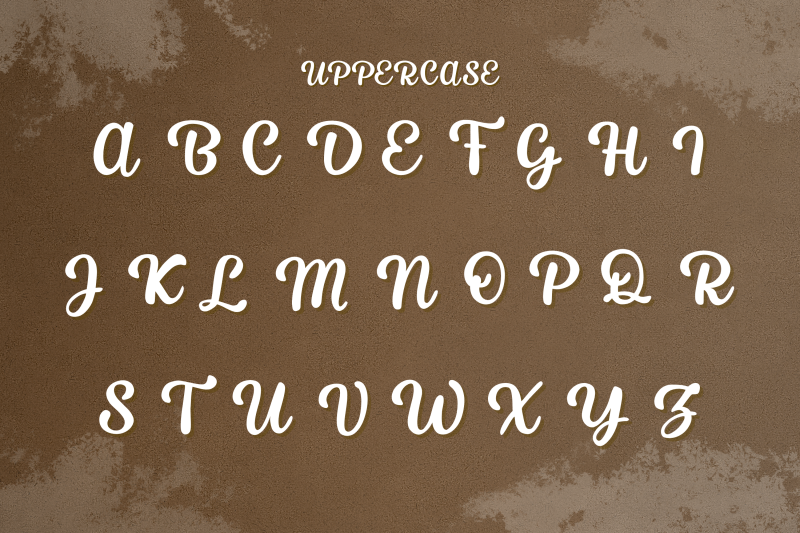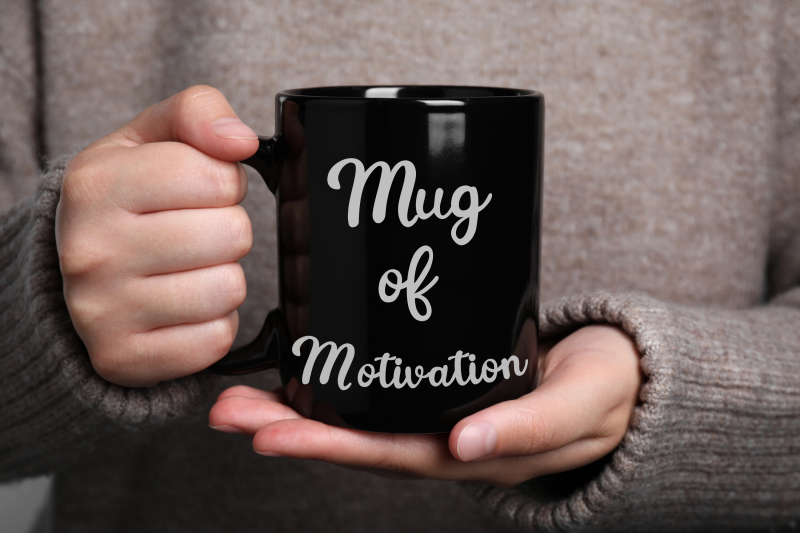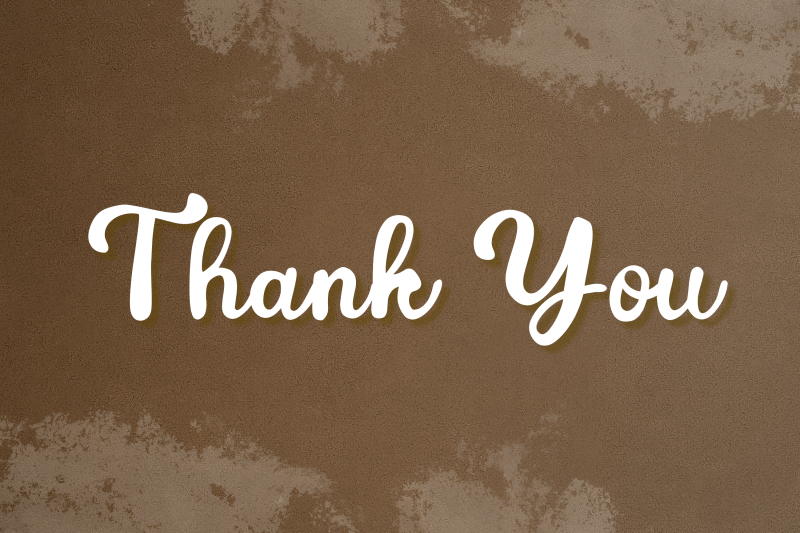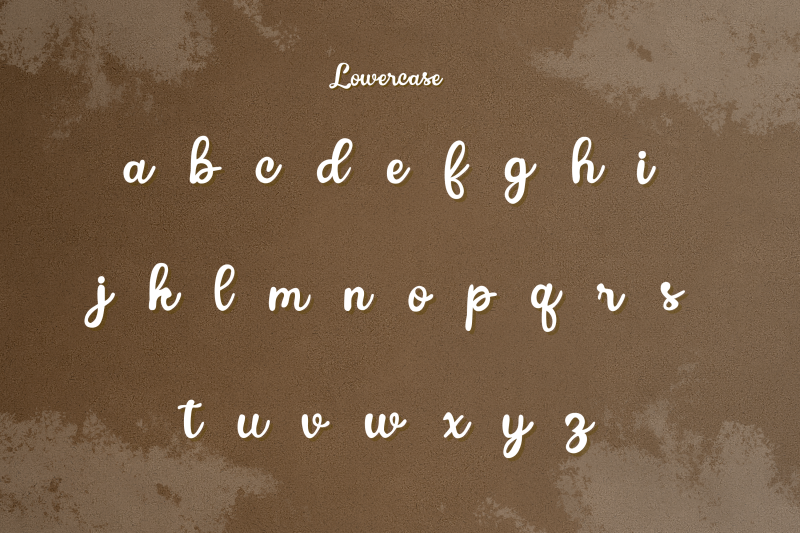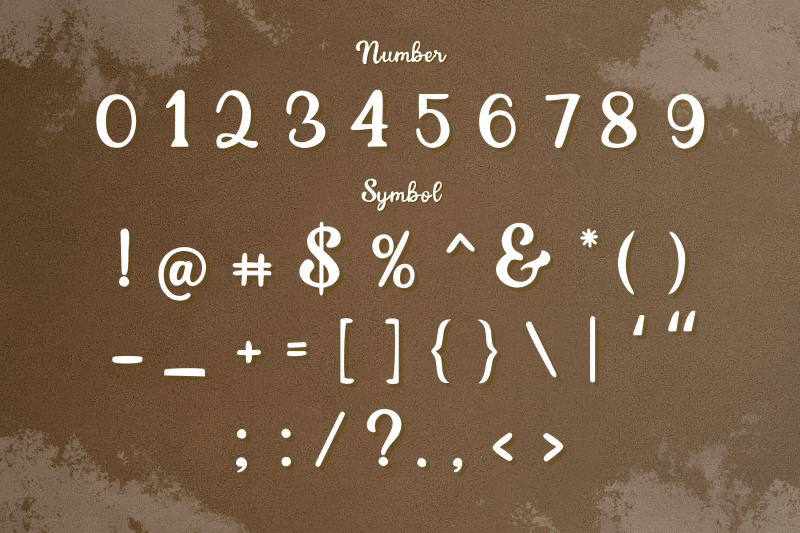
Baby Lucy Playful Handwritten Script Font
Baby Lucy is a playful handwritten script font with a sweet and decorative style. Perfect for invitations, baby products, branding, posters, greeting cards, and DIY crafts. Its smooth, friendly curves bring a warm and charming touch to any creative project.